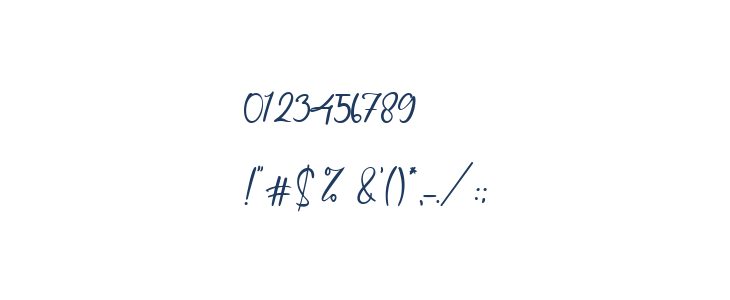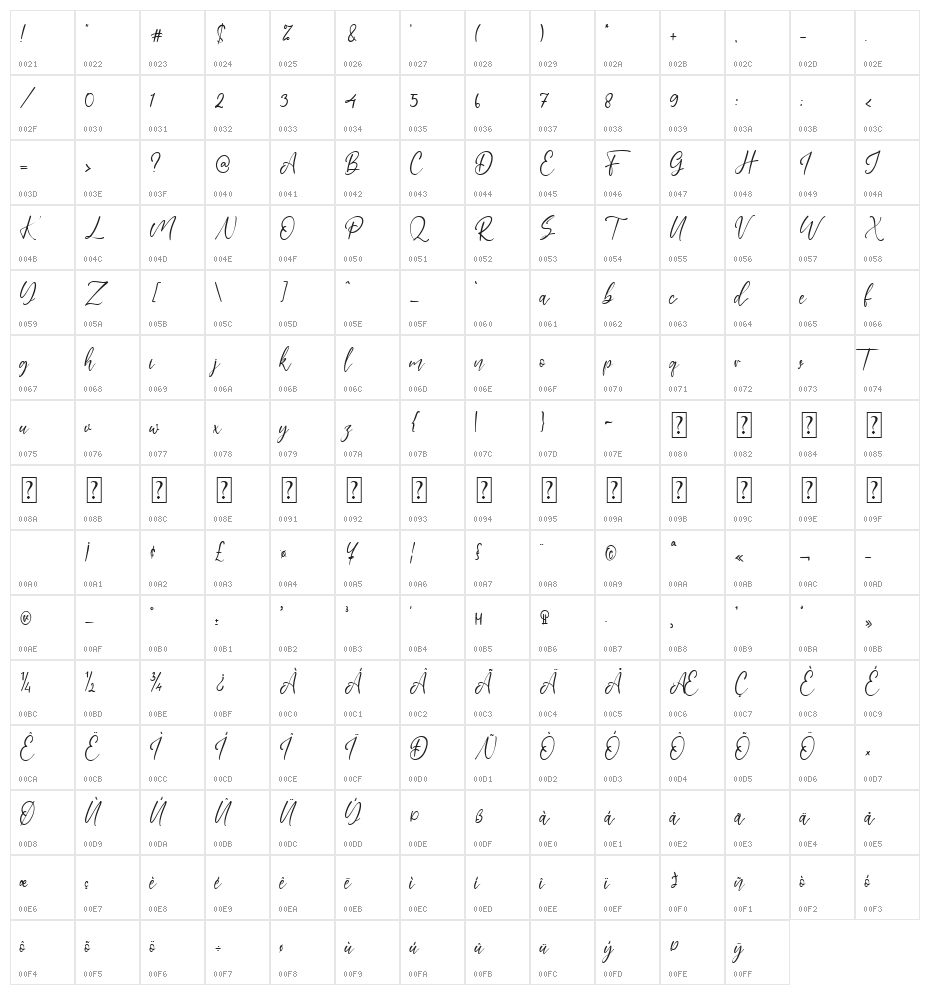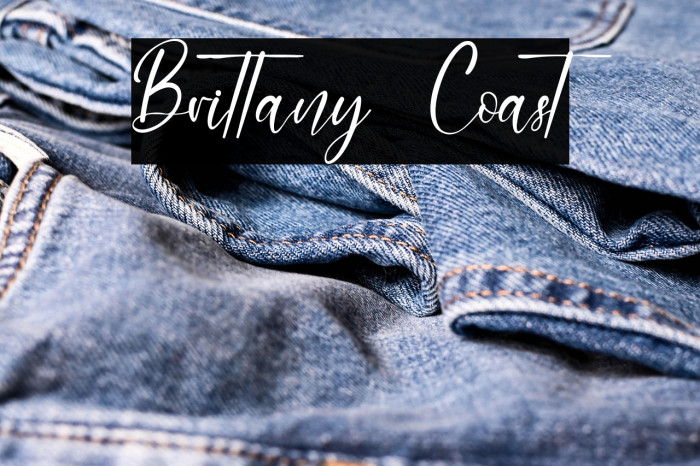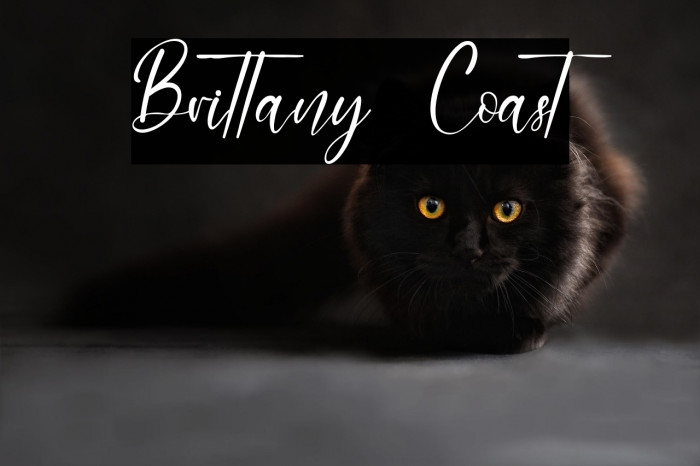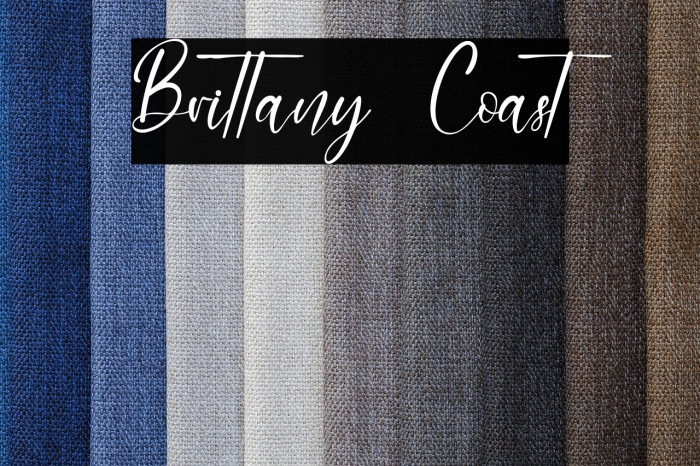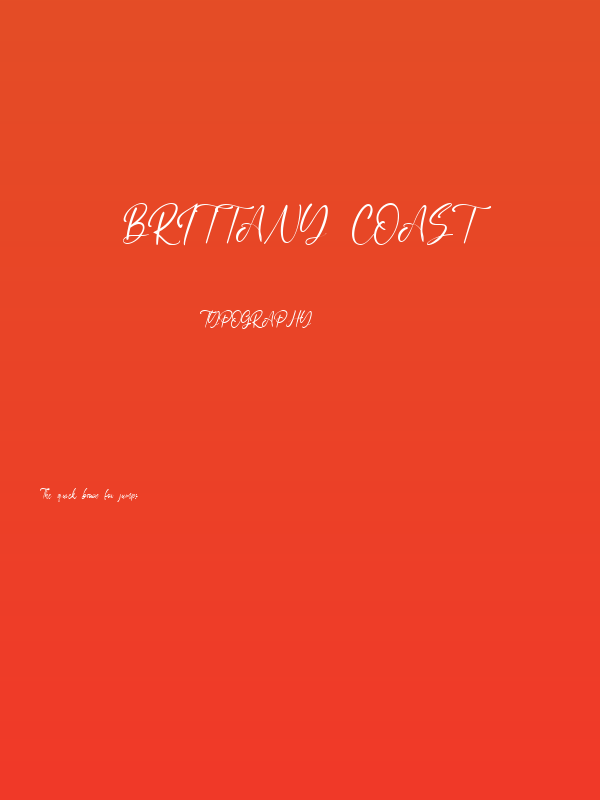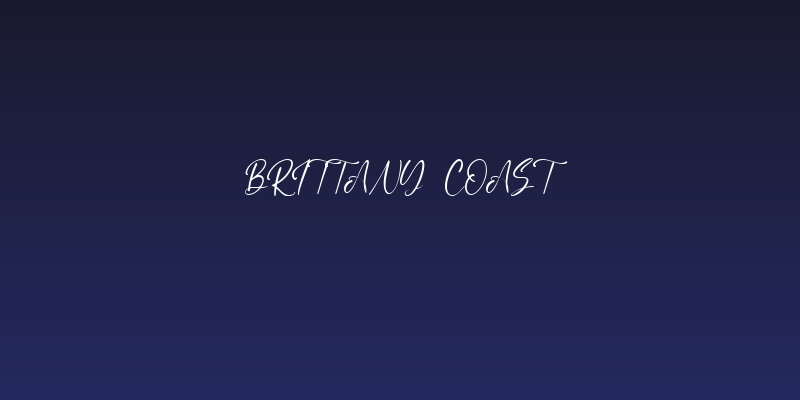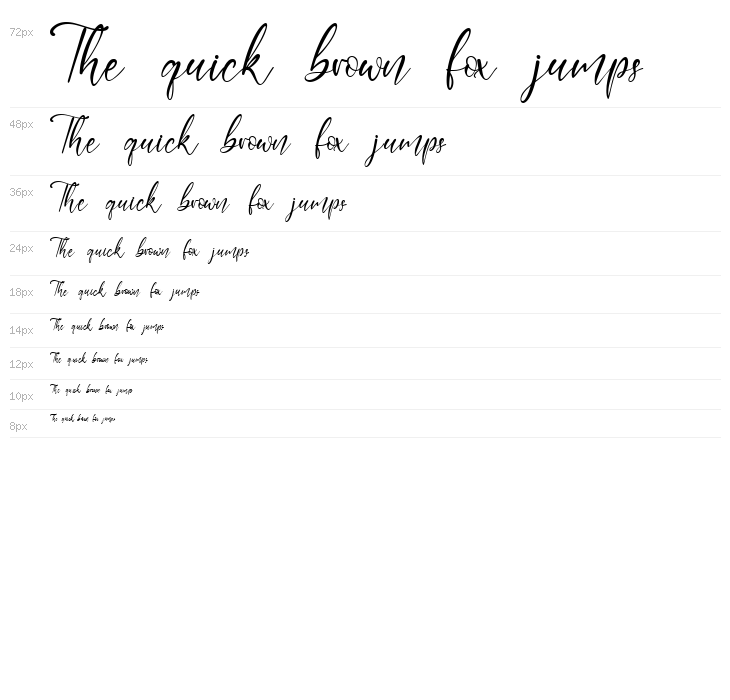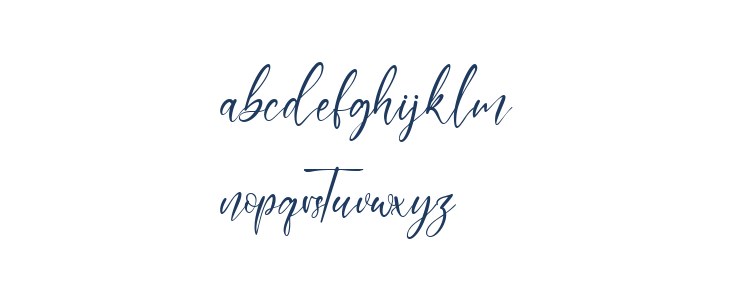
Brittany Coast Font
Brittany Coast Description
This elegant script font features a flowing, handwritten style with a modern touch. The uppercase letters are characterized by their sweeping curves and graceful loops, giving a sense of fluidity and movement. The lowercase letters maintain a consistent style, with subtle variations that add a personal touch. The numerals are clear and legible, complementing the overall aesthetic. Special characters are thoughtfully designed to match the font's sophisticated appearance. This font is perfect for adding a touch of elegance and sophistication to any project, making it ideal for invitations, branding, and decorative purposes.
| Proposed Projects | Ideal for wedding invitations, branding, greeting cards, and decorative projects. |